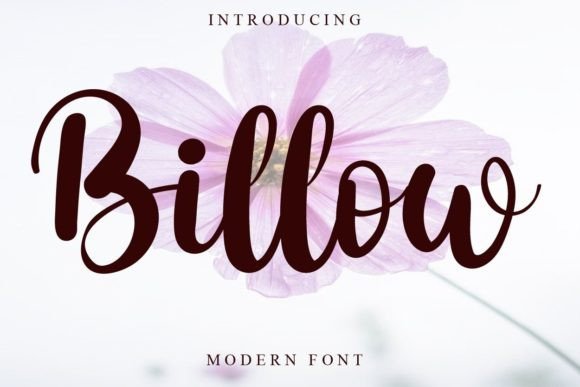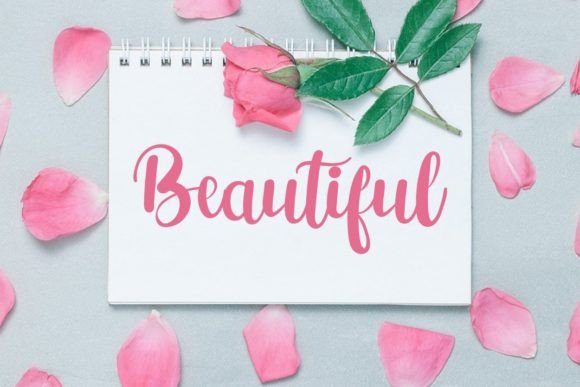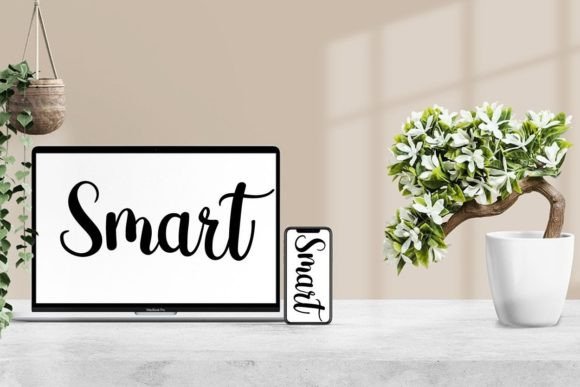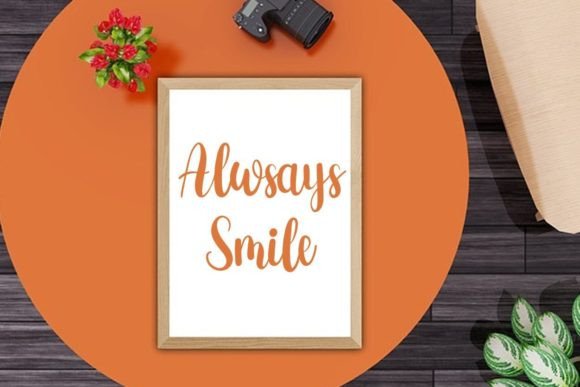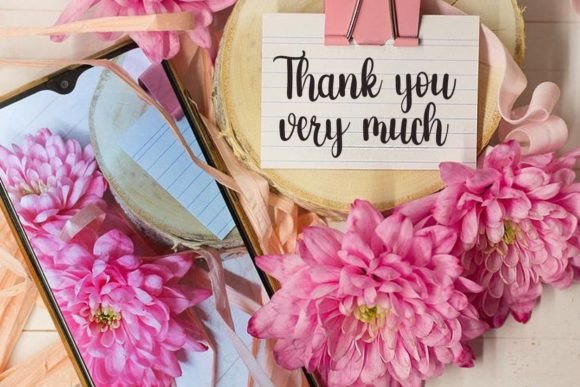
Billow Font
About Billow Font
“Billow” isn’t just a font; it’s a breath of fresh air, a stroke of creativity that can transform ordinary designs into extraordinary visual experiences. Its beauty lies in its handwritten charm, a style that is not just trendy but timeless. This font is the perfect blend of elegance and creativity, making it a versatile choice for various design projects.
Imagine your YouTube banners adorned with the graceful curves of Billow, instantly capturing the attention of viewers with its unique and artistic touch. Picture your logos, each letter crafted in this font, radiating sophistication and creativity, leaving a lasting impression on your audience. Billow adds a touch of class to wedding invitations, turning them into keepsakes that couples and guests will cherish.
Billow is not just a font; it’s a design essential, a tool that elevates your projects to a professional level. Its versatility knows no bounds—it fits seamlessly into mockups, enhances ID cards with a touch of personality, and brings flyers to life with its elegant presence. Crafts find a new dimension of creativity when Billow is used, adding a handmade touch that resonates with artistry and skill.
The font’s handwritten beauty extends to various aspects of your business and creative endeavors. It becomes the visual identity of your brand, a symbol of progress and development. Billow doesn’t just complement your designs; it enhances them, making them more appealing and engaging to your audience.
In a competitive market, Billow stands out as a mark of quality and creativity. Its fresh and beautiful appearance adds value to your projects, making them more memorable and impactful. When you choose Billow for your designs, you’re not just selecting a font; you’re investing in the growth and success of your business.
So, whether you’re a seasoned designer aiming to create stunning visual content or an entrepreneur looking to establish a strong brand presence, Billow is your trusted ally. It’s more than a font; it’s a pathway to progress and development. Let Billow be the brush that paints your success story and the handwritten touch that propels your designs to new heights. With Billow, your creative journey is bound to flourish and prosper.